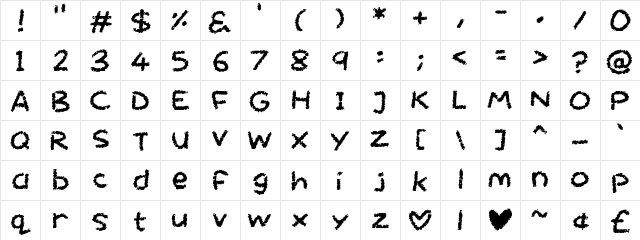
Chalktastic Regular
Design Context for Chalktastic Typeface
Chalktastic is a composed and adaptable typeface that performs quietly and consistently across a wide range of design contexts.